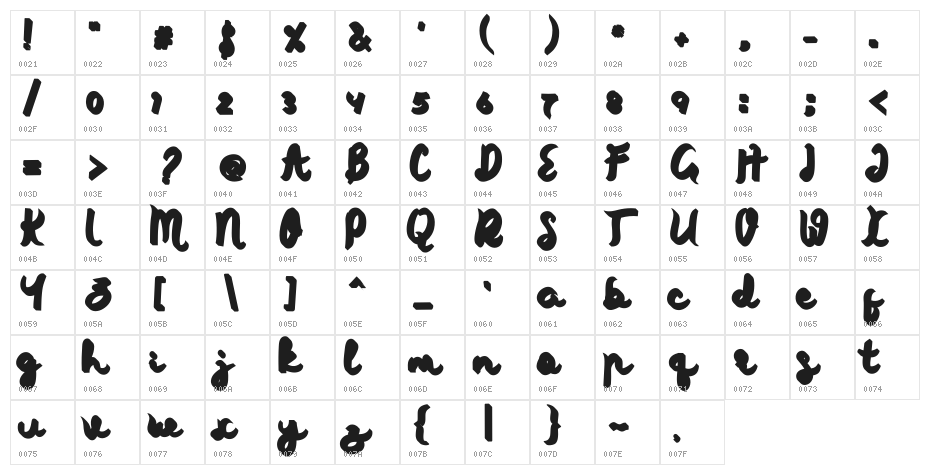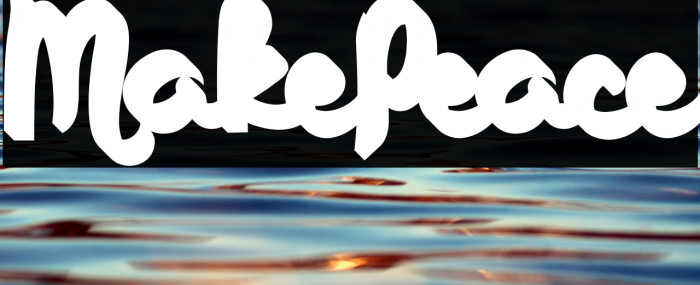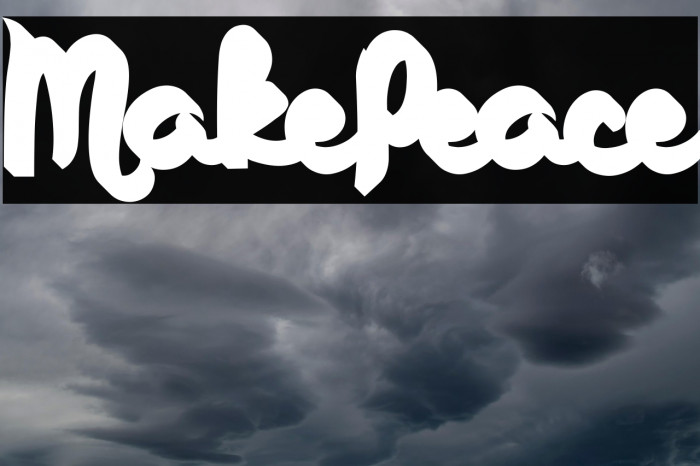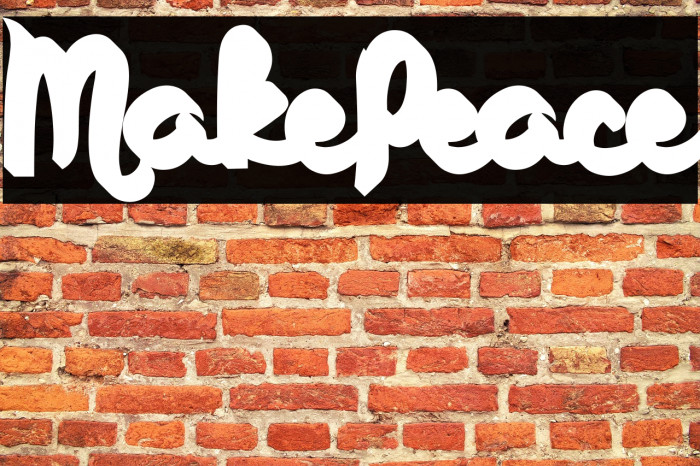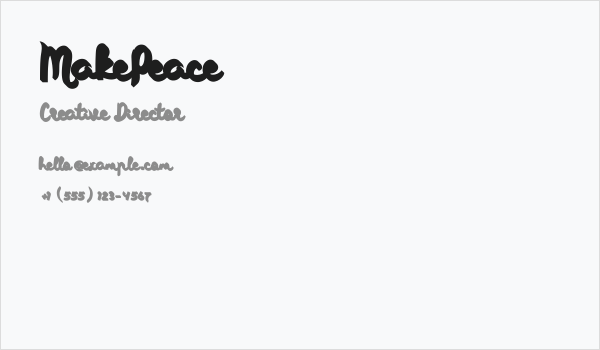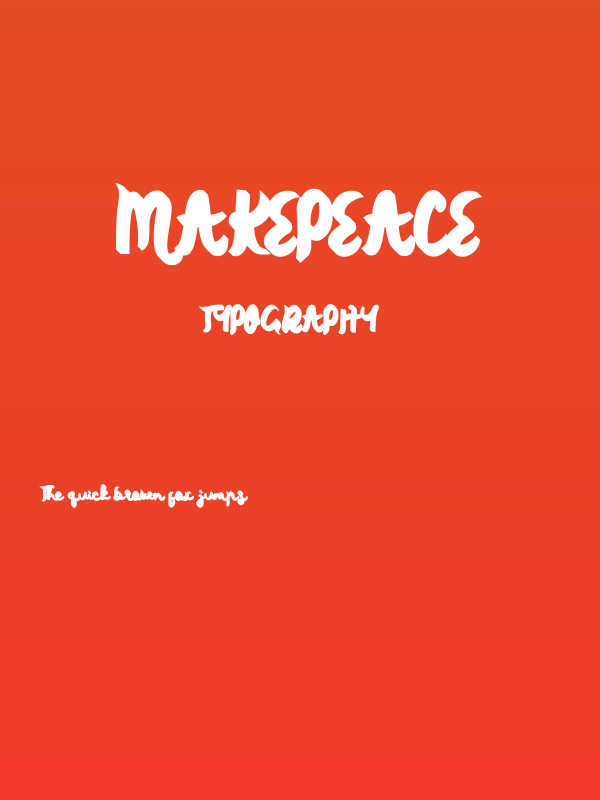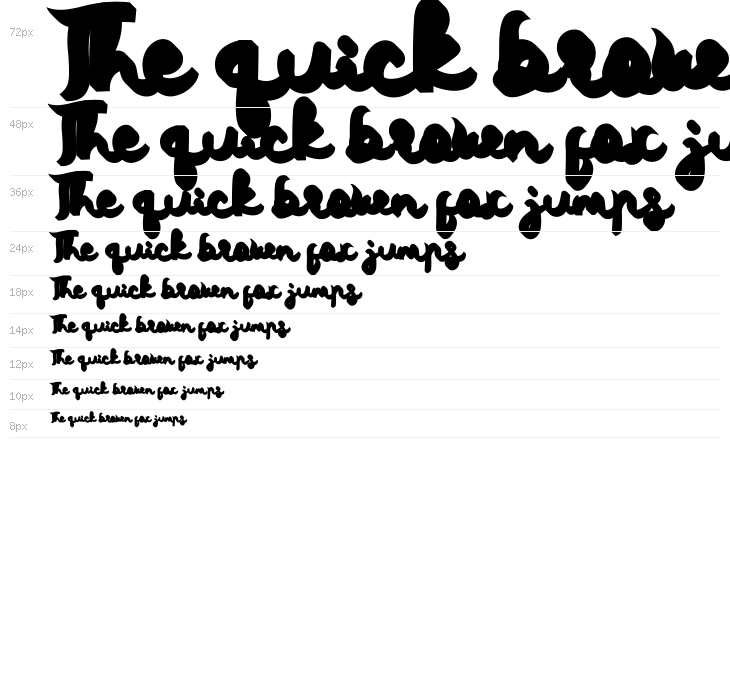
MakePeace Font
MakePeace Description
This font features a bold and expressive style, characterized by its thick, flowing strokes and a handwritten appearance. The letters are closely connected, creating a sense of continuity and movement. The uppercase and lowercase letters maintain a consistent style, with rounded edges and a playful, casual feel. The numbers and special characters follow the same aesthetic, ensuring uniformity across all elements. This font's unique personality makes it stand out, offering a dynamic and artistic touch to any design.
| Use Case | Logos, Headlines, Posters |
| Proposed Projects | Ideal for creative projects such as posters, invitations, branding, and social media graphics where a personal and artistic touch is desired. |